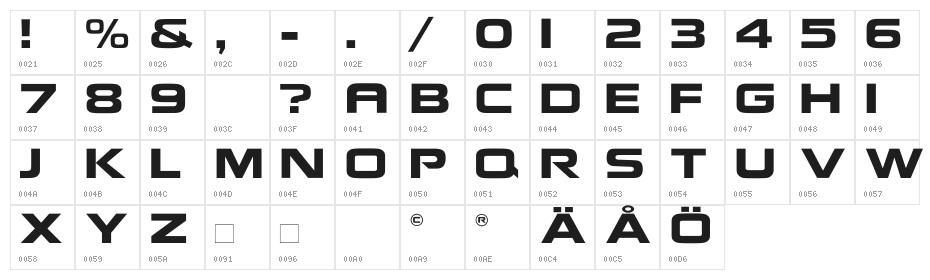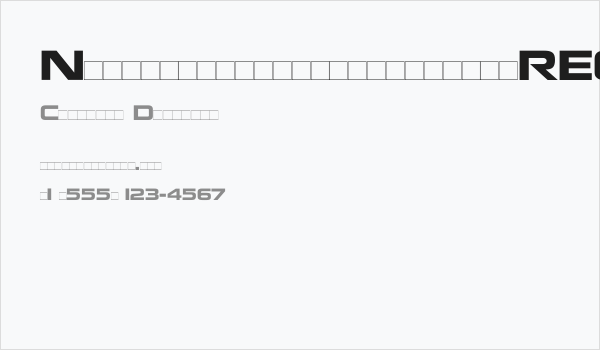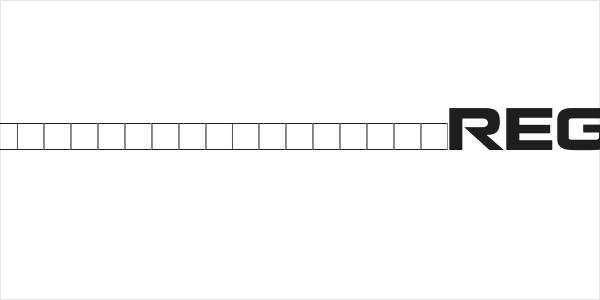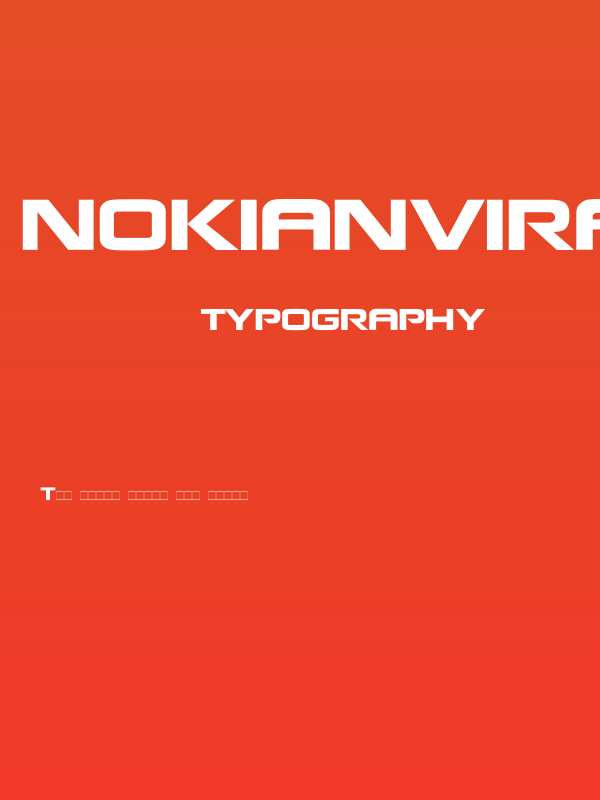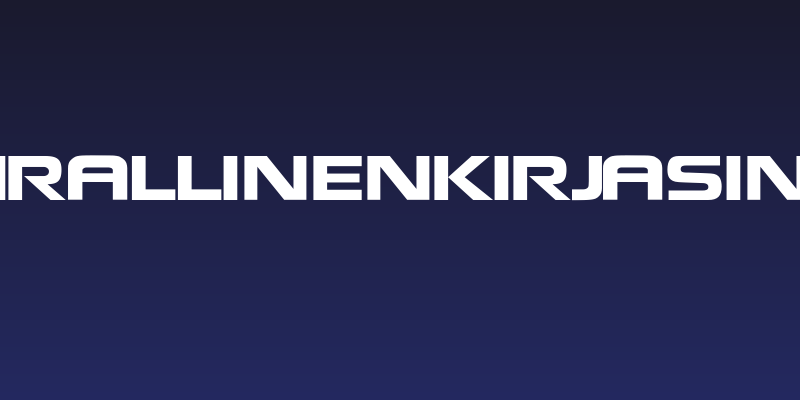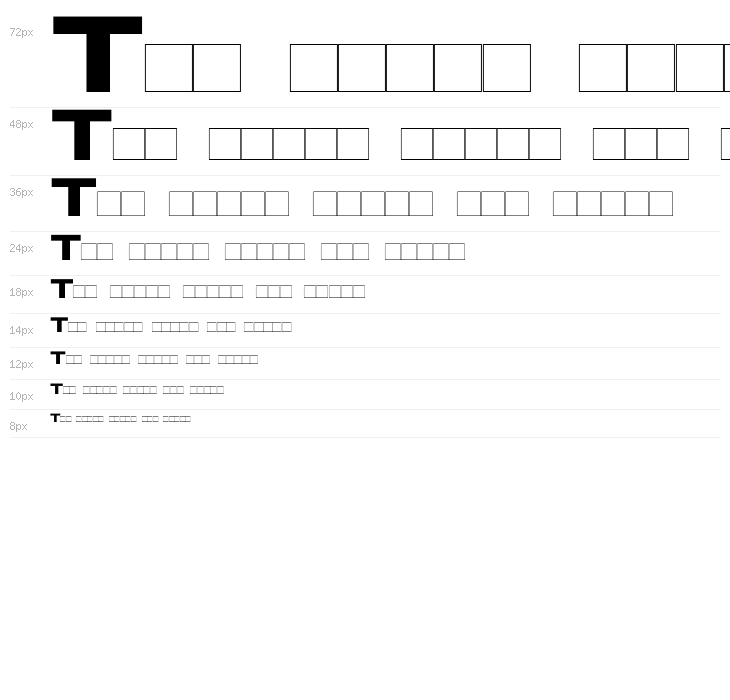
NokianvirallinenkirjasinREGULAR Font
NokianvirallinenkirjasinREGULAR Description
This font features a bold, geometric sans-serif style with a modern and clean appearance. The characters are constructed with uniform stroke widths, giving it a balanced and cohesive look. The uppercase letters are particularly striking with their strong, angular lines, while the numerals maintain a consistent height and width, ensuring readability. The special characters are designed to complement the overall style, maintaining the same bold and structured aesthetic. This font is ideal for projects that require a contemporary and professional look.
| Proposed Projects | Ideal for branding, advertising, and digital media projects that require a strong and modern visual impact. |